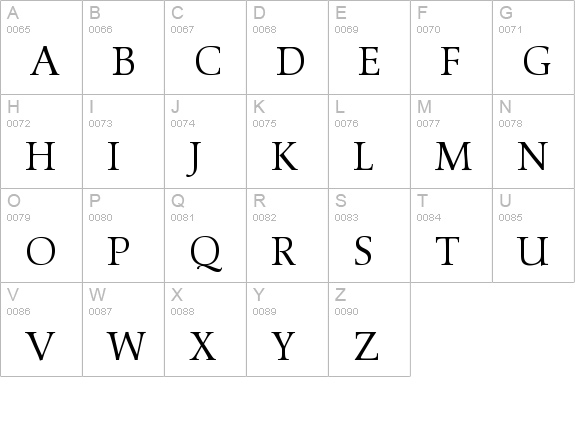
Schneider-Antiqua Light is a refined, elegant variant in the Schneider typeface family \xE2\x80\x94 well suited to elegant body text, refined sub-headings, and luxury branding.
Schneider-Antiqua Light font is a true classic with a touch of elegance and sophistication. Designed with meticulous attention to detail, this font exudes a timeless charm that is perfect for any project that requires a hint of vintage flair. With its delicate serifs and slender letterforms, Schneider-Antiqua Light font effortlessly captures the essence of traditional typography. Its clean lines and graceful curves make it a versatile choice for both print and digital media, ensuring that your message is delivered with clarity and style. This font is not only visually stunning but also incredibly versatile. Whether you are designing a logo, a wedding invitation, or a magazine layout, Schneider-Antiqua Light font will bring a touch of refinement to your project. Its versatility allows it to be paired with other fonts seamlessly, enhancing the overall aesthetic appeal. What makes Schneider-Antiqua Light font even more appealing is that it is available for free download at FontsMarket.com. This means that you can bring this exquisite typeface into your design arsenal without breaking the bank. Its availability as a free font allows you to experiment and explore its potential in various projects without any limitations. So, why wait? Elevate your design game with Schneider-Antiqua Light font. Its timeless elegance and versatility will make your creations stand out from the crowd. Download it for free at FontsMarket.com and unleash your creativity today.